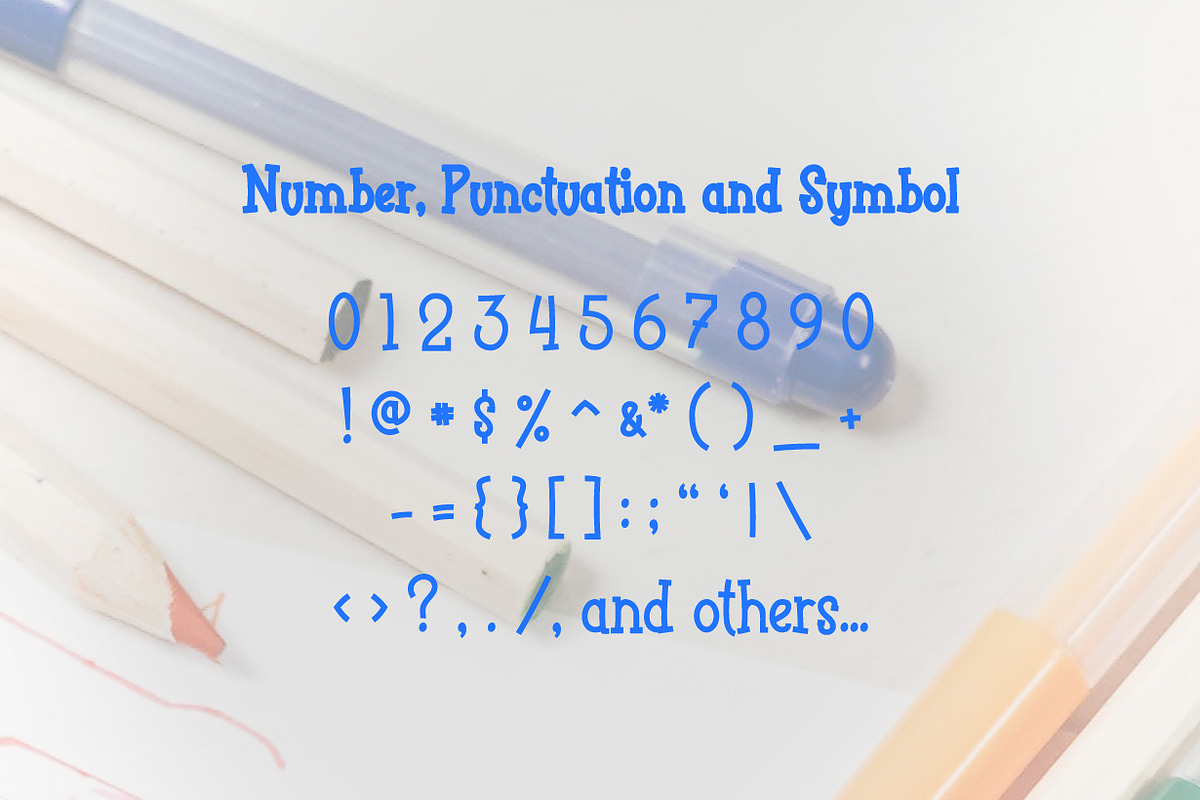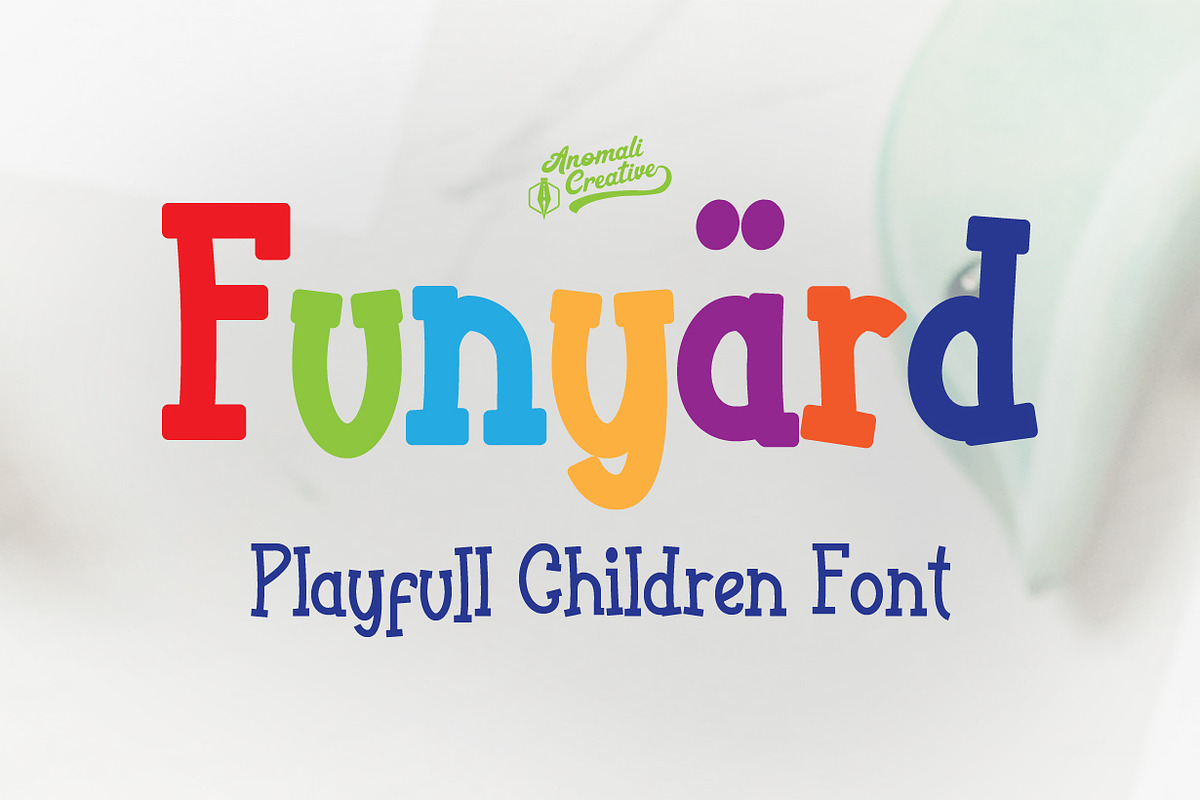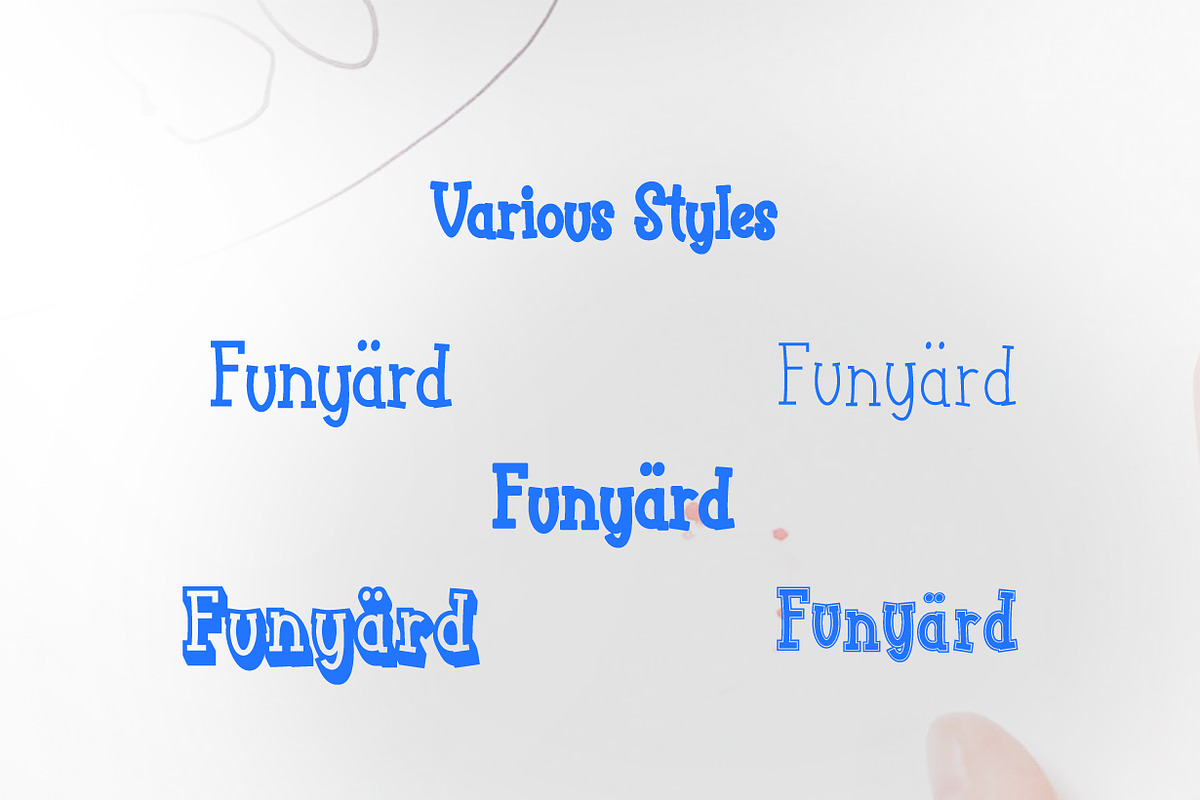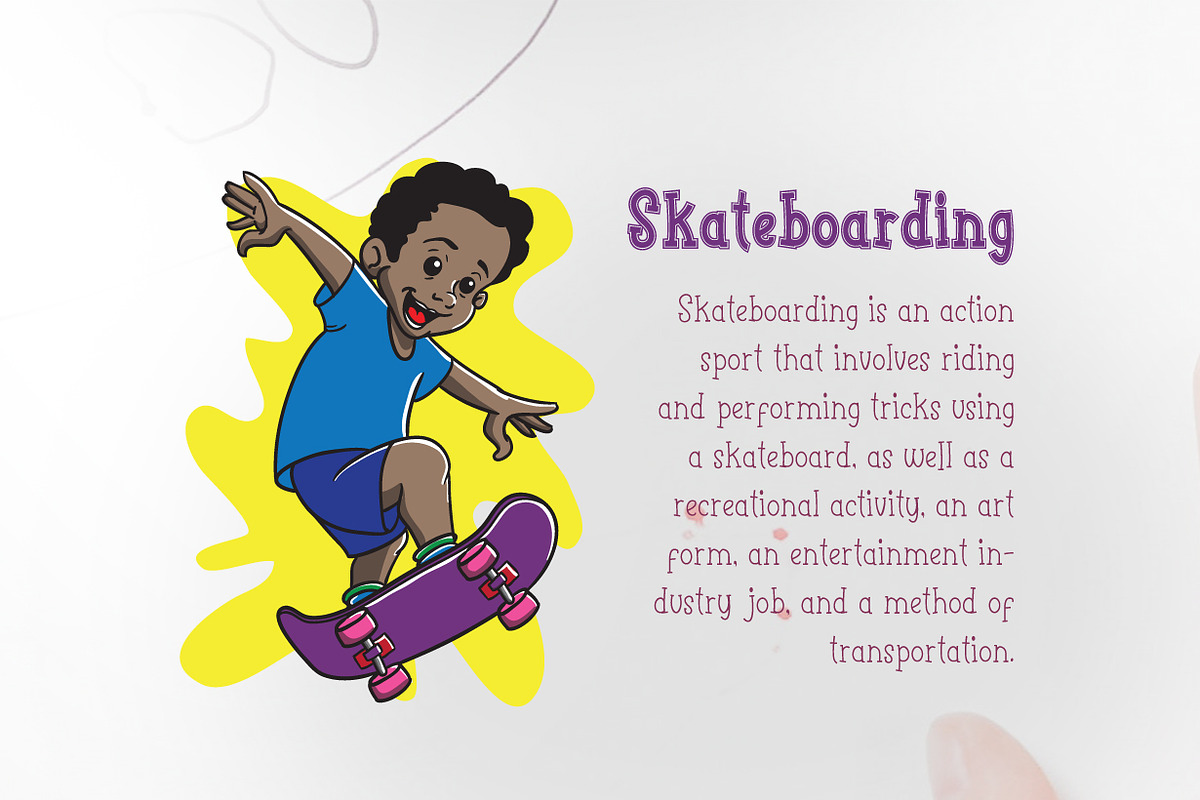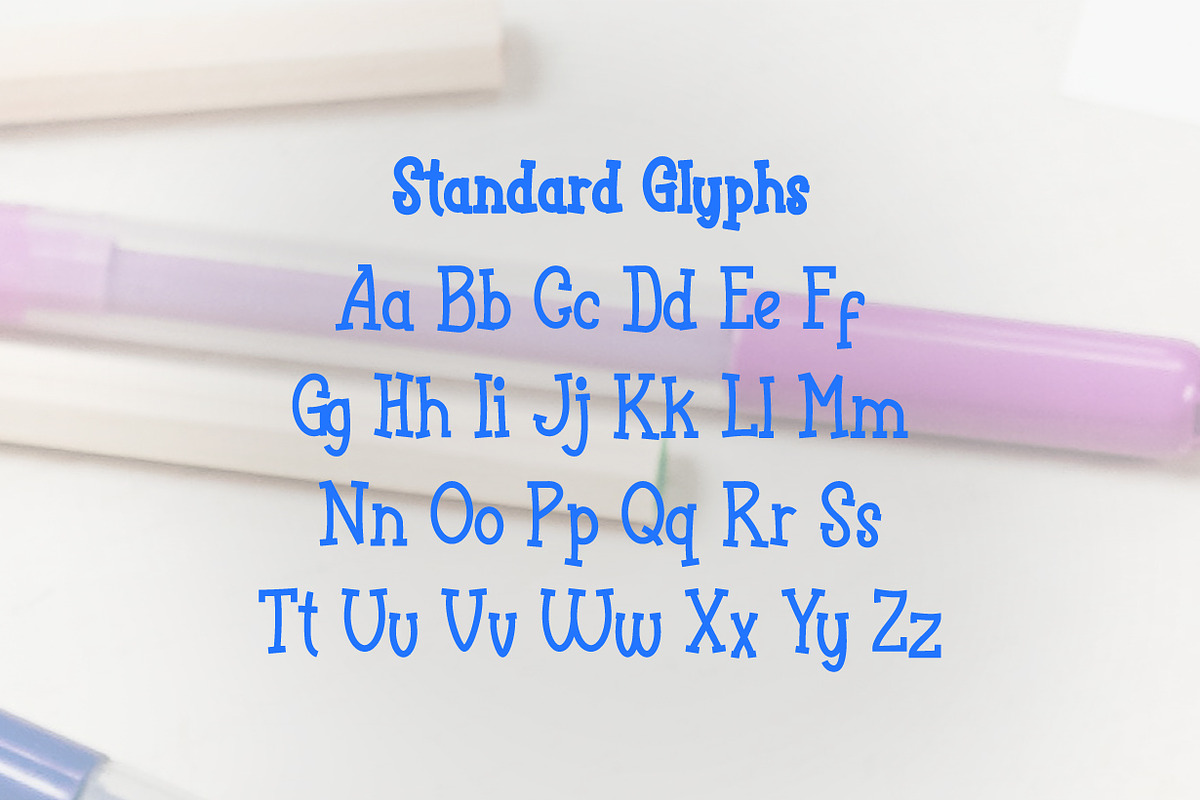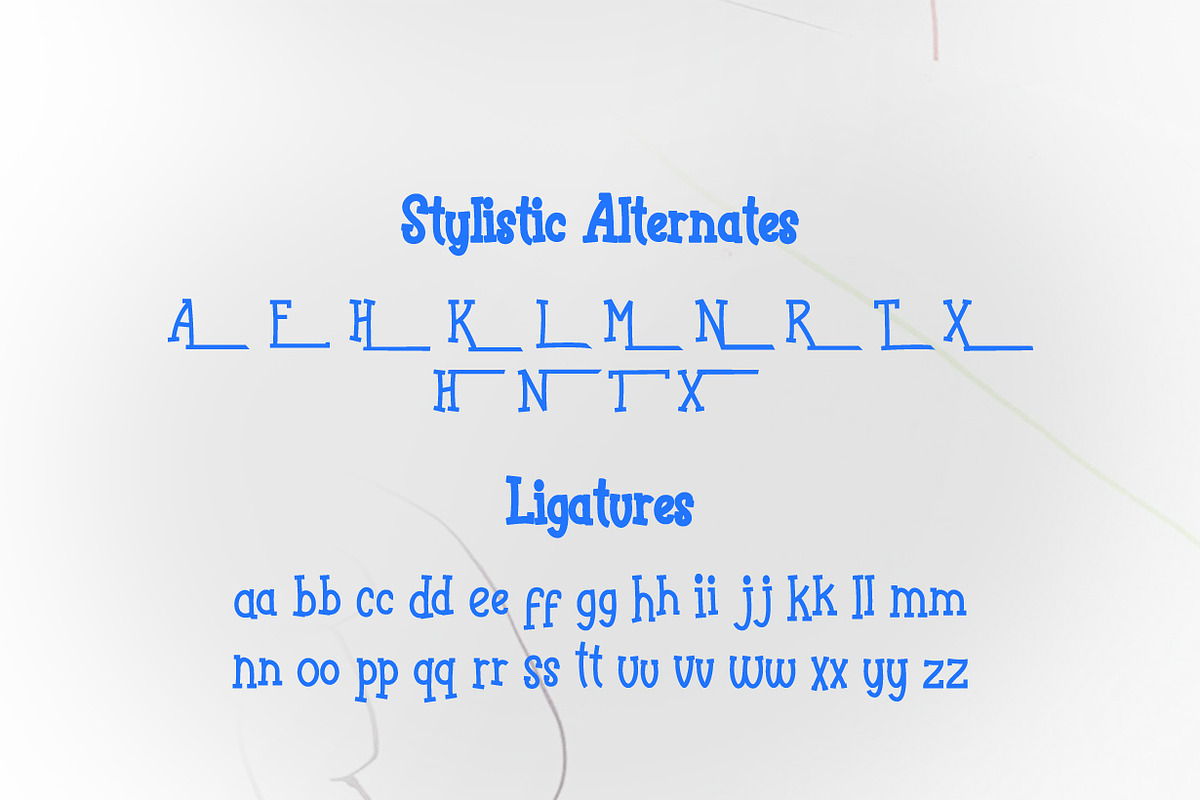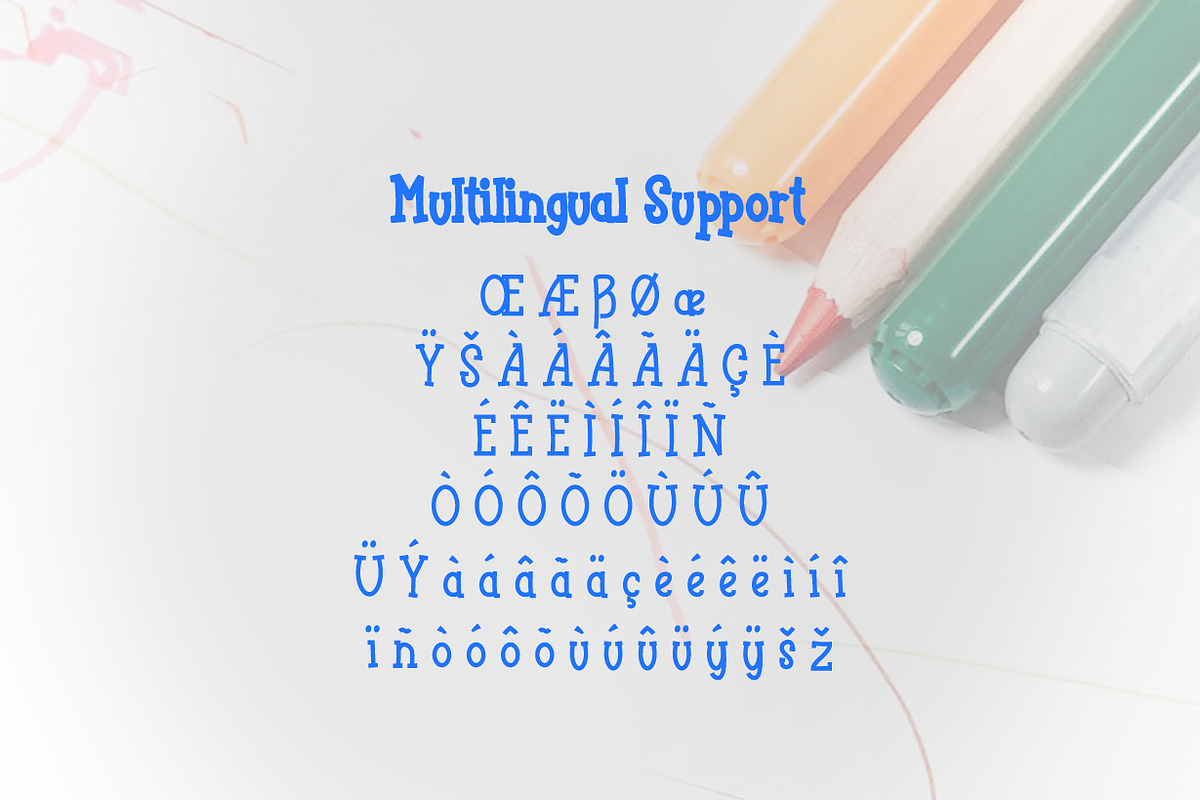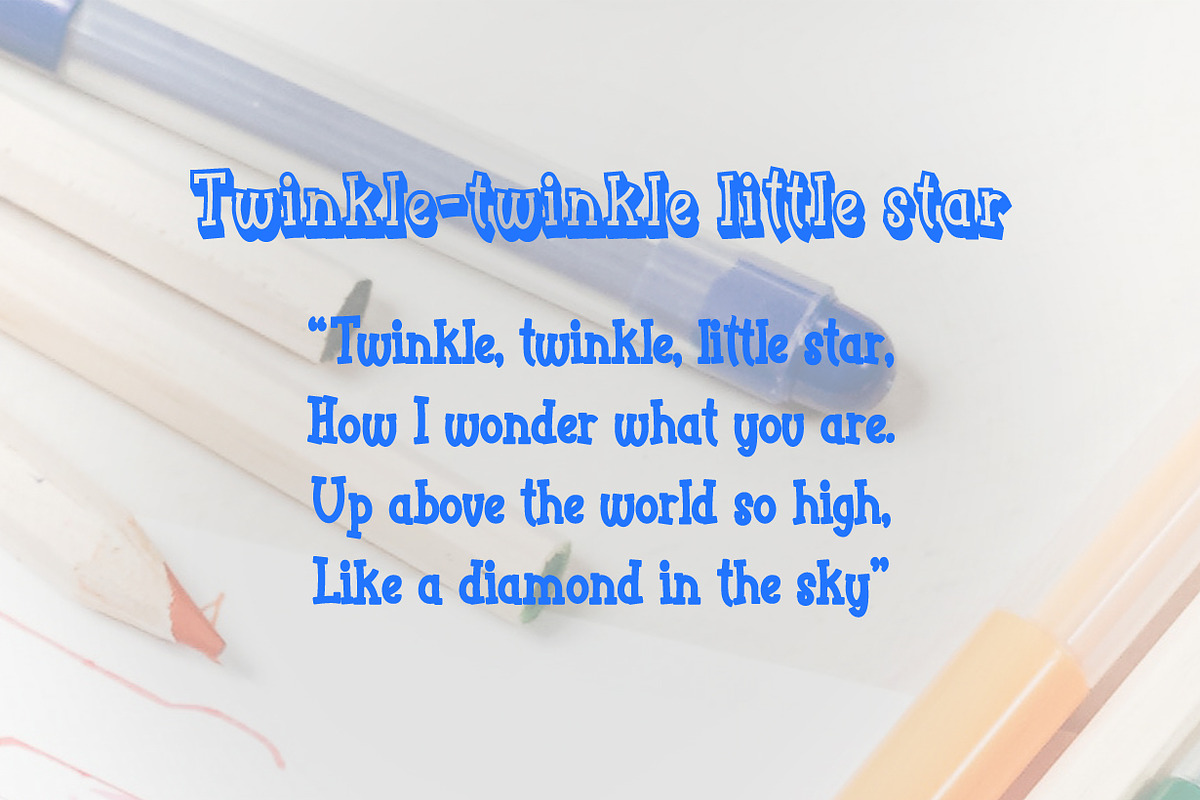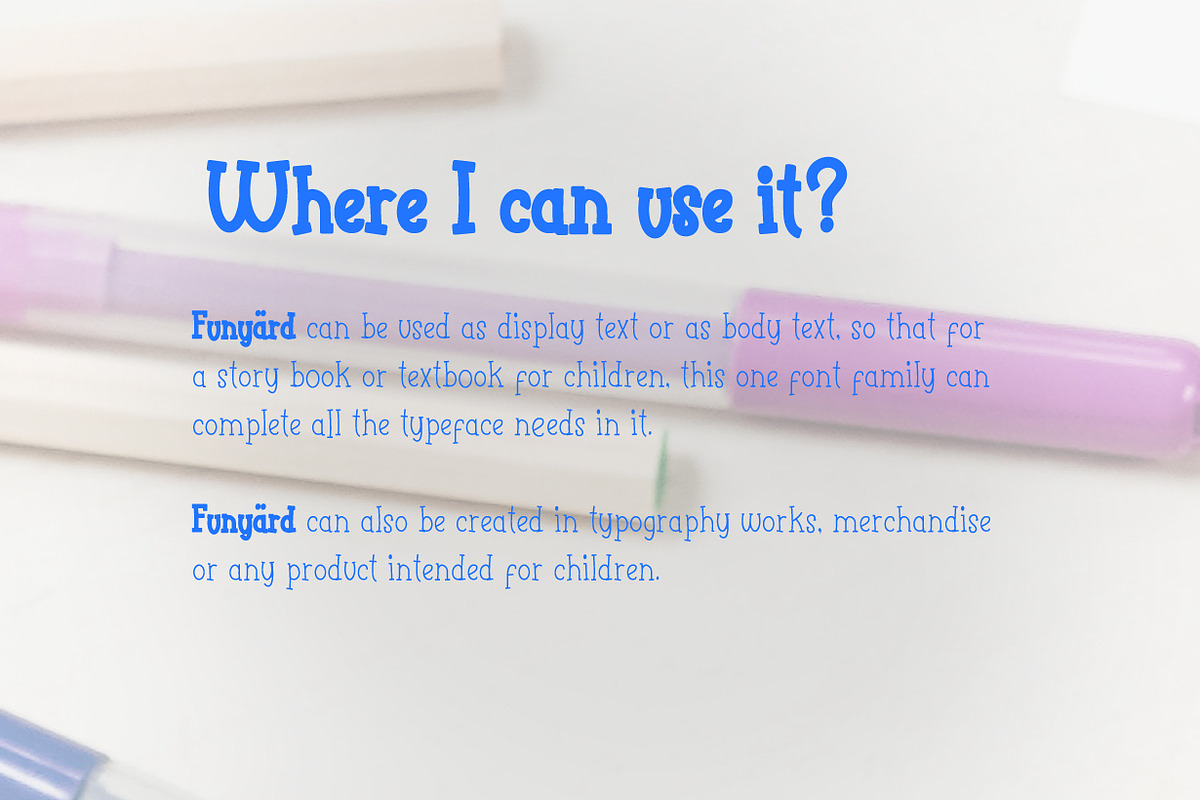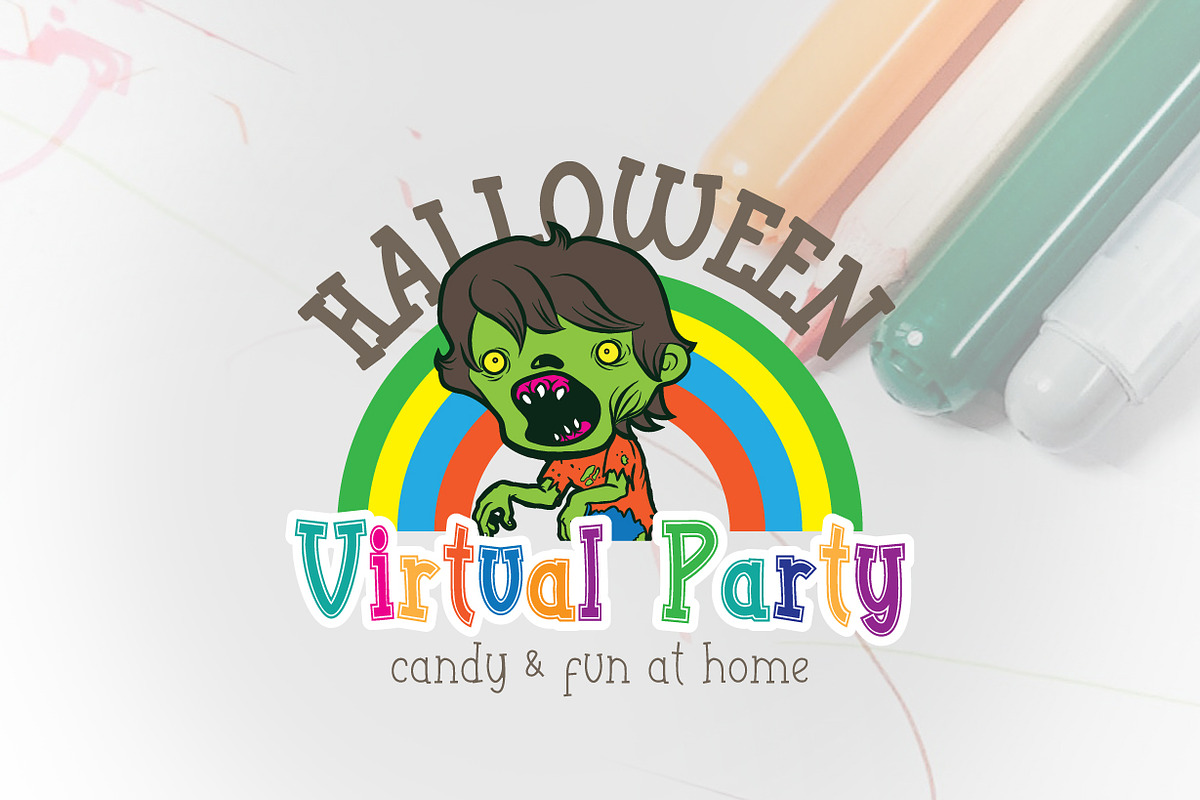
Funyard - Playful Cute Kids Font
The idea behind the creation of the Funyärd font is that there is an increasing need for fonts that are simple, funny and can be used in children's learning books, storytelling book, especially for pre-school children, kindergartens or toddlers, who due to this pandemic have not been able to enjoy the atmosphere of school learning, but must still feel a cheerful atmosphere while studying at home.
Funyärd can be used as display text or as body text, so that for a story book or textbook for children, this one font family can complete all the typeface needs in it.
Funyärd can also be created in typography works, merchandise or any product intended for children.